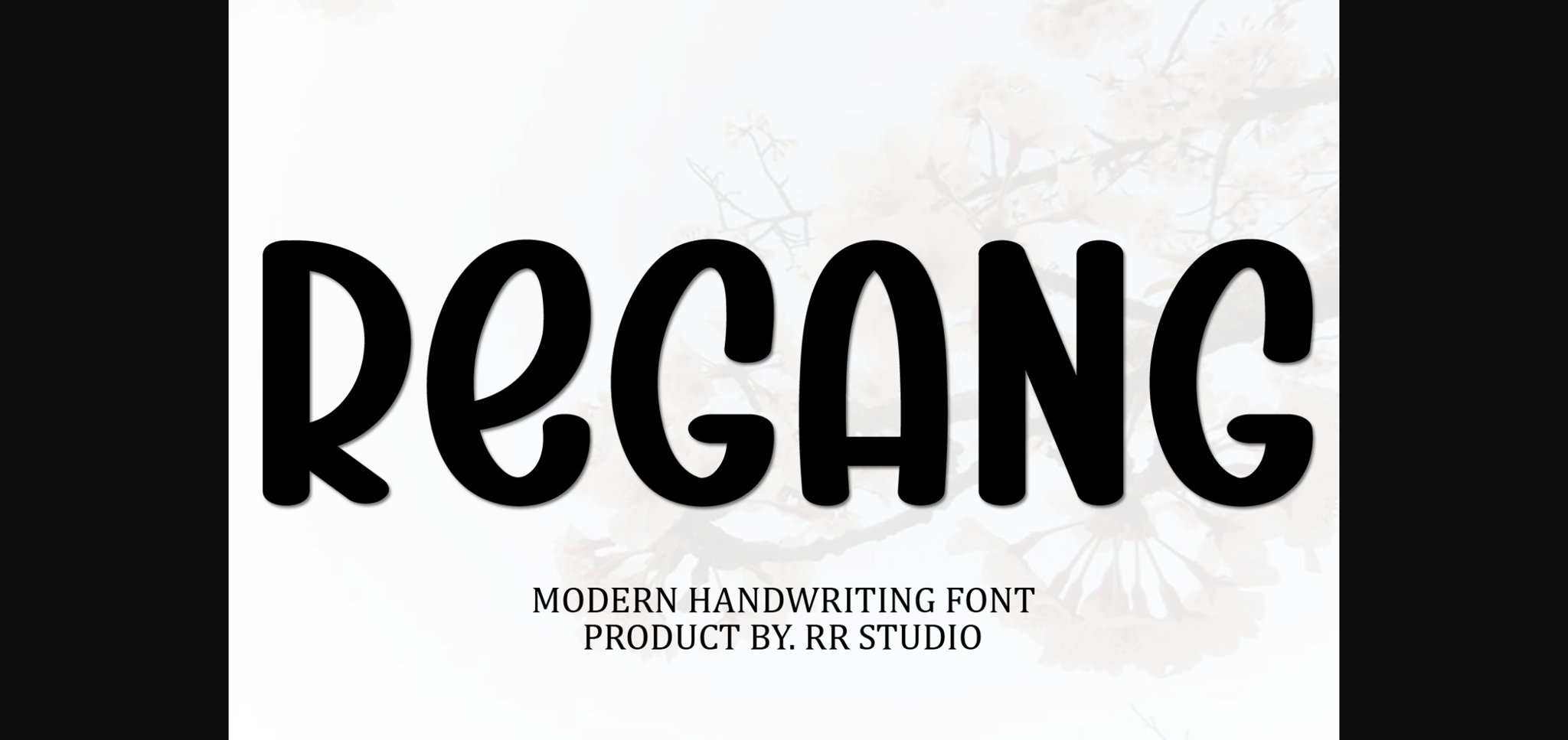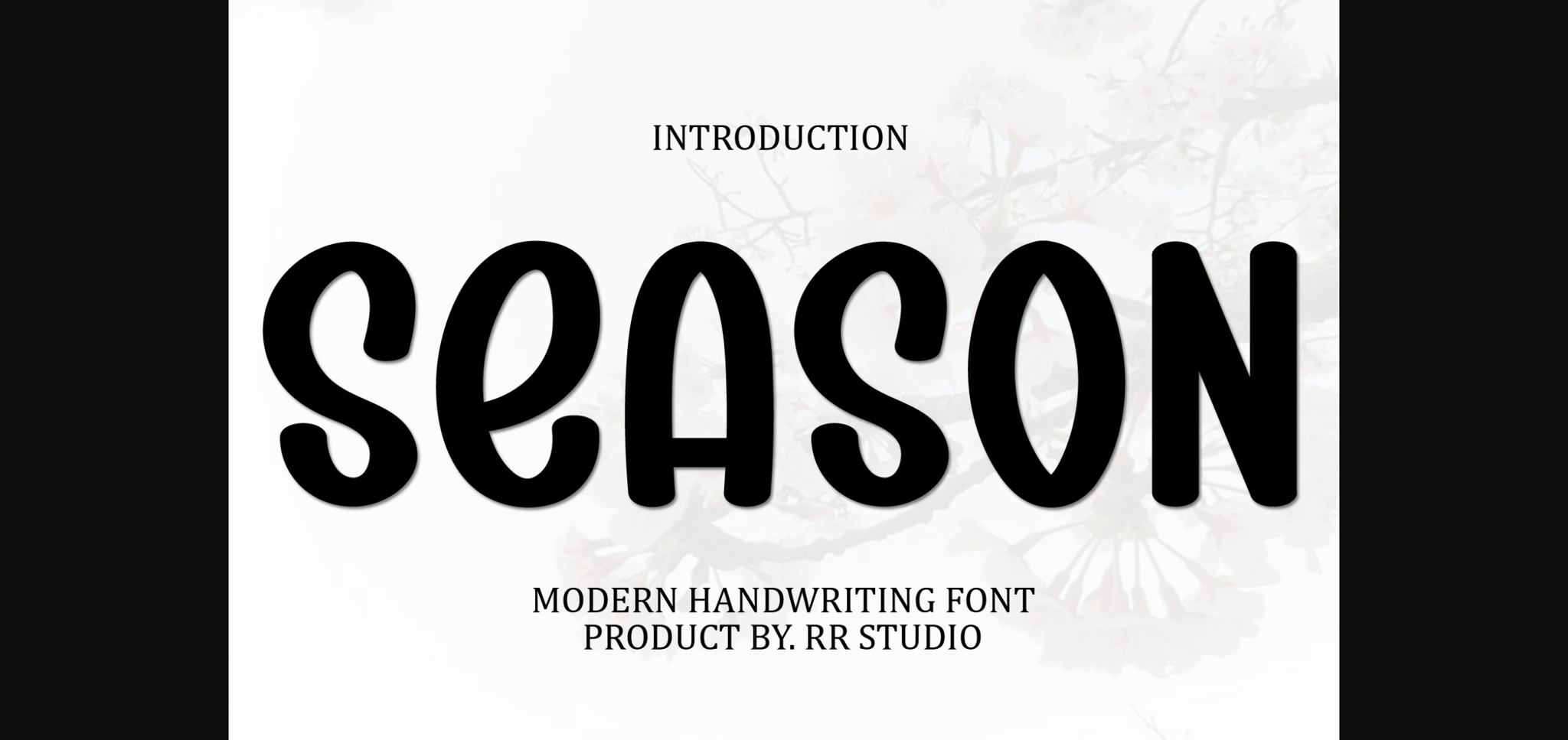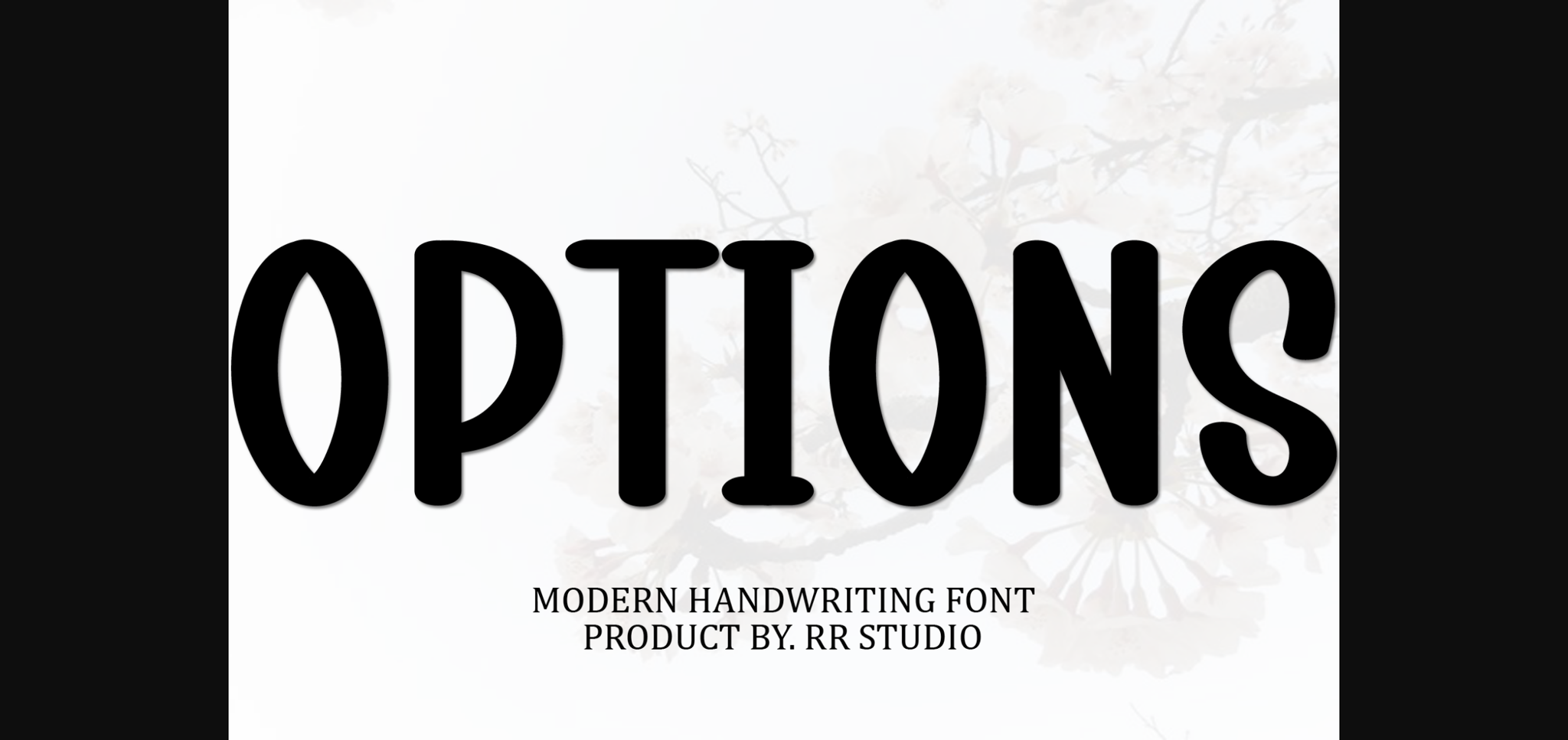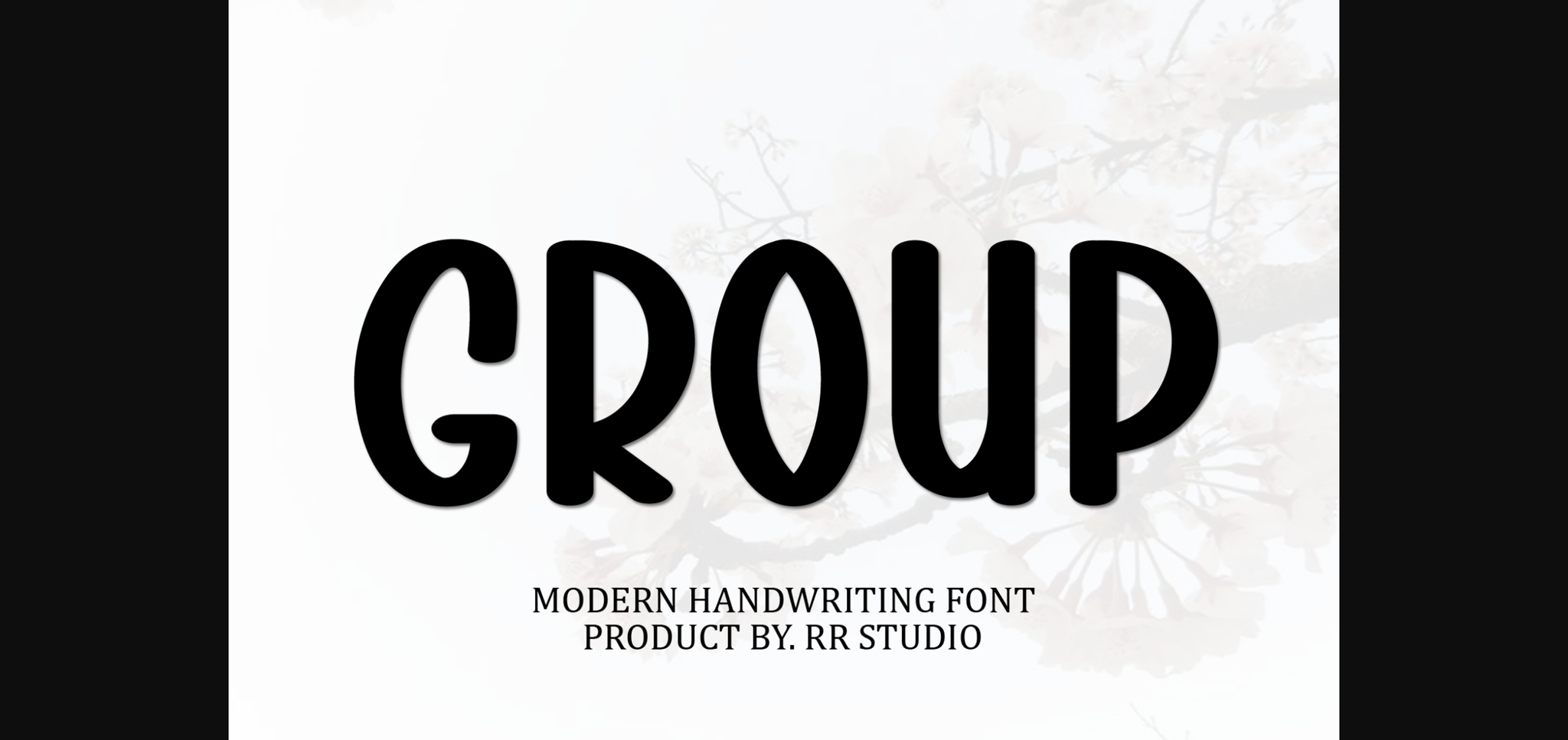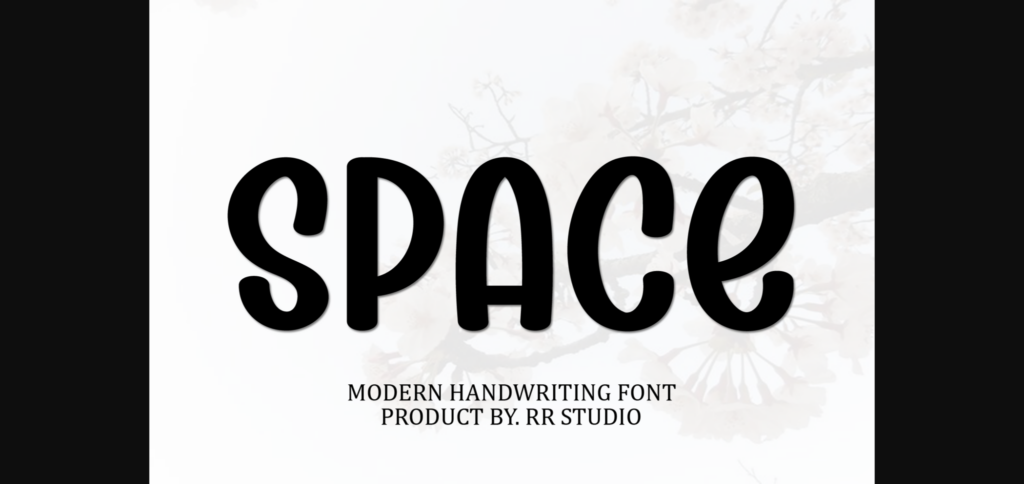
HomeSans Serif FontsSeason Font Sans Serif Fonts Season Font FacebookXPinterestWhatsApp 1 of 7 ... Season Font Poster 2... Season Font Poster 3... Season Font Poster 4... Season Font Poster 5... Season Font Poster 6... Season Font Poster 7... About Season Font Season is a flowing, sleek, and trendy sans-serif font. Add it confidently to your crafty projects and enjoy the results! DOWNLOAD NOW People also explored Diary Book Font Relaystar Font Slim Planner Font Theraline Font Inatic Font Cooking Font Khalani Artemis Font Snowflakes Font Hello Font 520 0 TagsSeasonSeason Font Previous articleLasercut FontNext articleNatives Font LEAVE A REPLY Cancel reply Comment: Please enter your comment! Name:* Please enter your name here Email:* You have entered an incorrect email address! Please enter your email address here Website: Save my name, email, and website in this browser for the next time I comment. Personal Use Free Victorian Ornaments Personal Use Free Read more about this font Mini Story Personal Use Free Read more about this font Heart Personal Use Free Read more about this font Kaysan Personal Use Free Read more about this font BLOG Fonts That Capture the Spirit of New York City New York City is more than just a place—it’s an experience, a rhythm, a visual language... Transform Your Website: Elevate Your Typography with 7 Best Web Font Generators Free vs Paid Fonts: Why Investing in Premium Fonts Is Worth It Where to Buy American Fonts Online in 2024